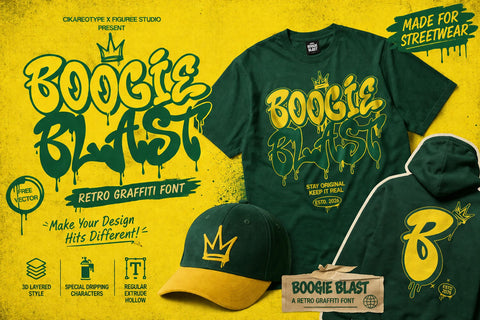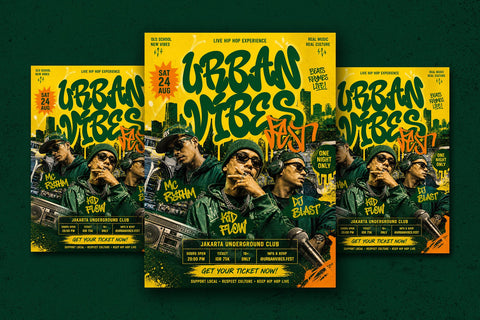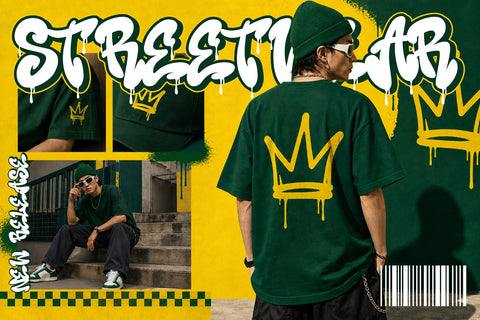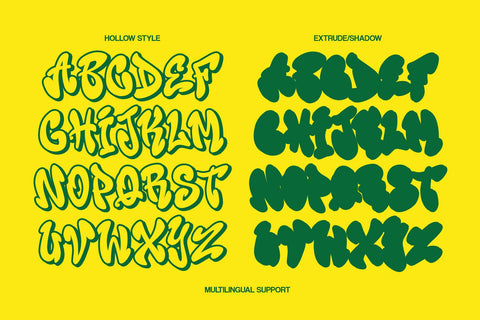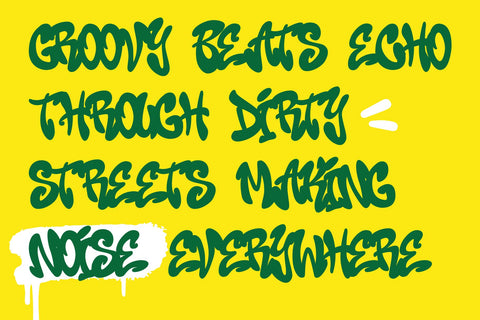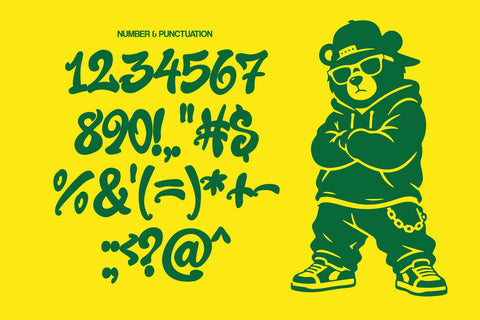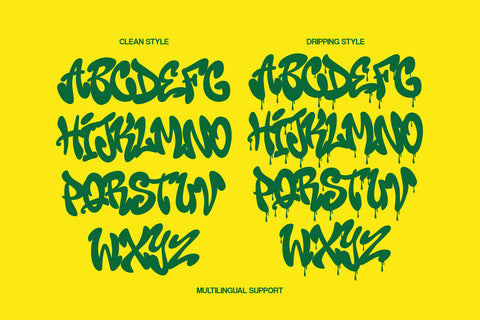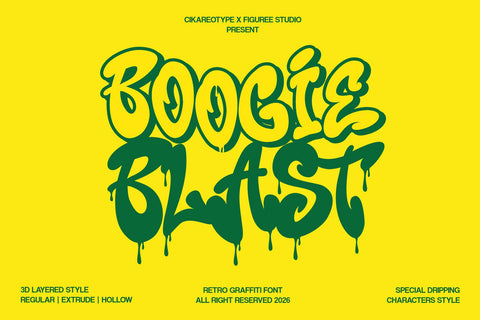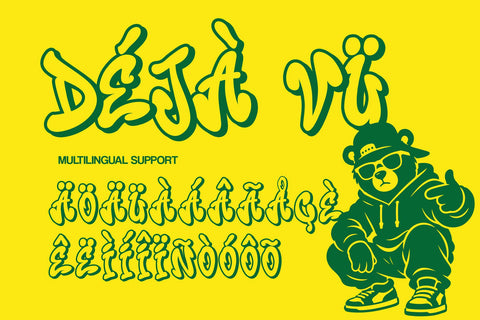
Boogie Blast – 3D Groovy Retro Graffiti Font
Boogie Blast is a bold and energetic 3D groovy retro graffiti font that blends vintage funk aesthetics with modern street art expression. Inspired by retro typography from the 70s and 80s combined with graffiti drip styles, this typeface delivers a playful yet powerful visual impact that instantly stands out.
The font comes with four unique styles: Regular, Dripping, Hollow, and Extrude. Each style is designed to give you maximum creative flexibility. The Regular style provides bold groovy letterforms with smooth curves and retro character. The Dripping style adds expressive paint-like drips, bringing a graffiti-inspired edge and dynamic movement. The Hollow style offers outlined shapes that are perfect for layering and experimental compositions. Meanwhile, the Extrude style introduces a 3D depth effect that enhances dimensionality and creates eye-catching typography.
Boogie Blast includes uppercase characters with bold proportions and funky shapes that reflect retro culture and street energy. The letters are designed with rounded edges and flowing curves, creating a friendly yet striking appearance. Numbers and punctuation are also included, ensuring full usability across different design needs.
With multilingual support, Boogie Blast is suitable for global creative projects. This allows designers to maintain consistent style across various languages, making it ideal for branding and international campaigns.
This font is perfect for projects that require bold, playful, and nostalgic vibes. It works exceptionally well for posters, album covers, music branding, streetwear, merchandise, logos, packaging, and social media graphics. Its retro-groovy style combined with graffiti elements makes it highly appealing for youth-oriented and trend-driven designs.
The combination of four styles allows designers to experiment with layering techniques. For example, the Extrude style can be used to create depth, while the Dripping style adds expressive detail. The Hollow style can be layered for outlines, and the Regular style acts as a strong base. This versatility opens up endless possibilities for creative compositions.
From a design perspective, Boogie Blast is highly effective as a focal point. Its bold and unique shapes naturally draw attention, making it ideal for headlines and key visual elements. Designers can pair it with simple fonts for supporting text to create balance and readability.
Technically, Boogie Blast is optimized for both print and digital use. Its vector-based construction ensures high-quality output across different sizes and formats. Whether used in large-scale posters or digital content, it maintains clarity and visual impact.
Another advantage of Boogie Blast is its strong personality. The combination of retro and graffiti elements creates a unique style that feels both nostalgic and modern. This makes it suitable for a wide range of creative industries, from music and fashion to digital media.
Overall, Boogie Blast is more than just a font—it is a celebration of retro culture and urban creativity. It allows designers to create bold, expressive, and visually engaging designs that stand out in any medium.